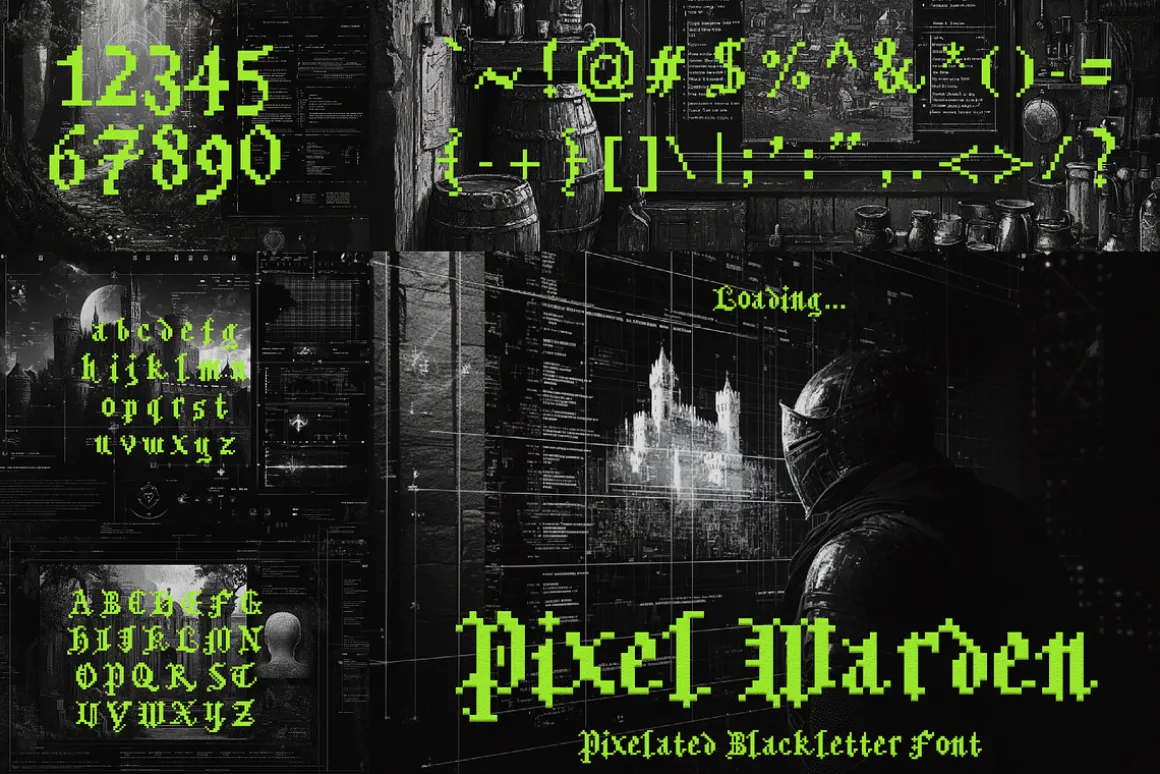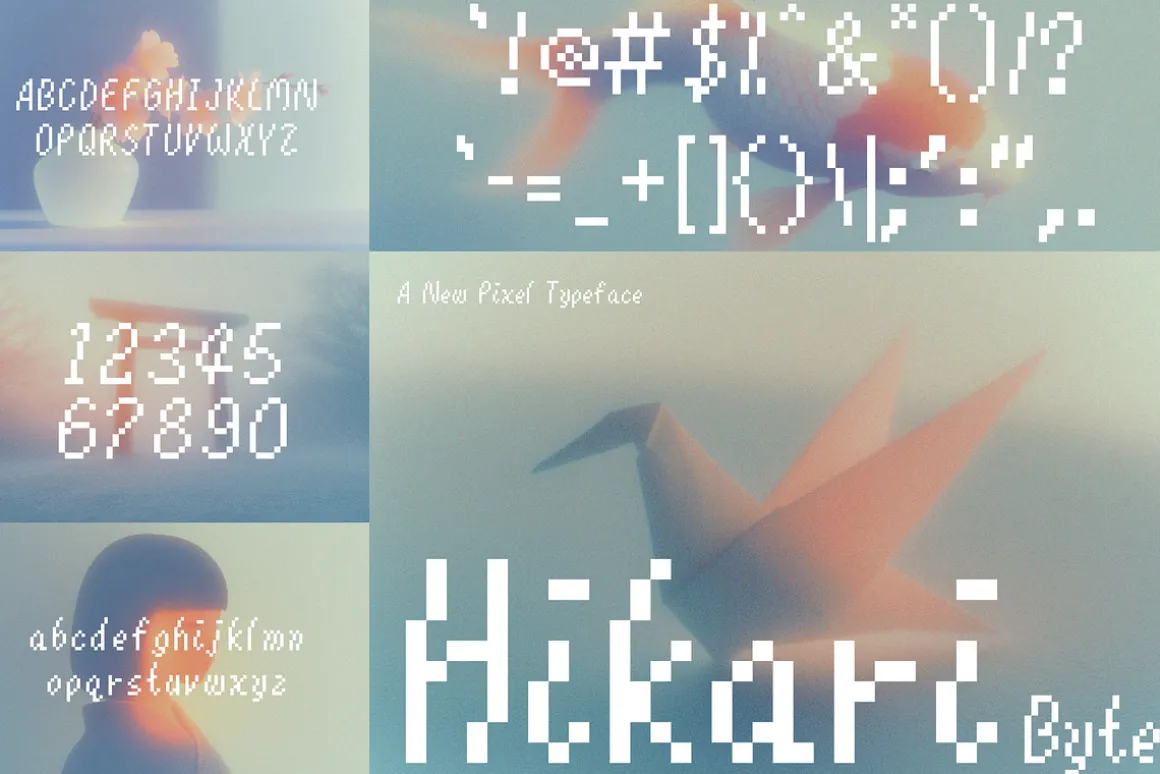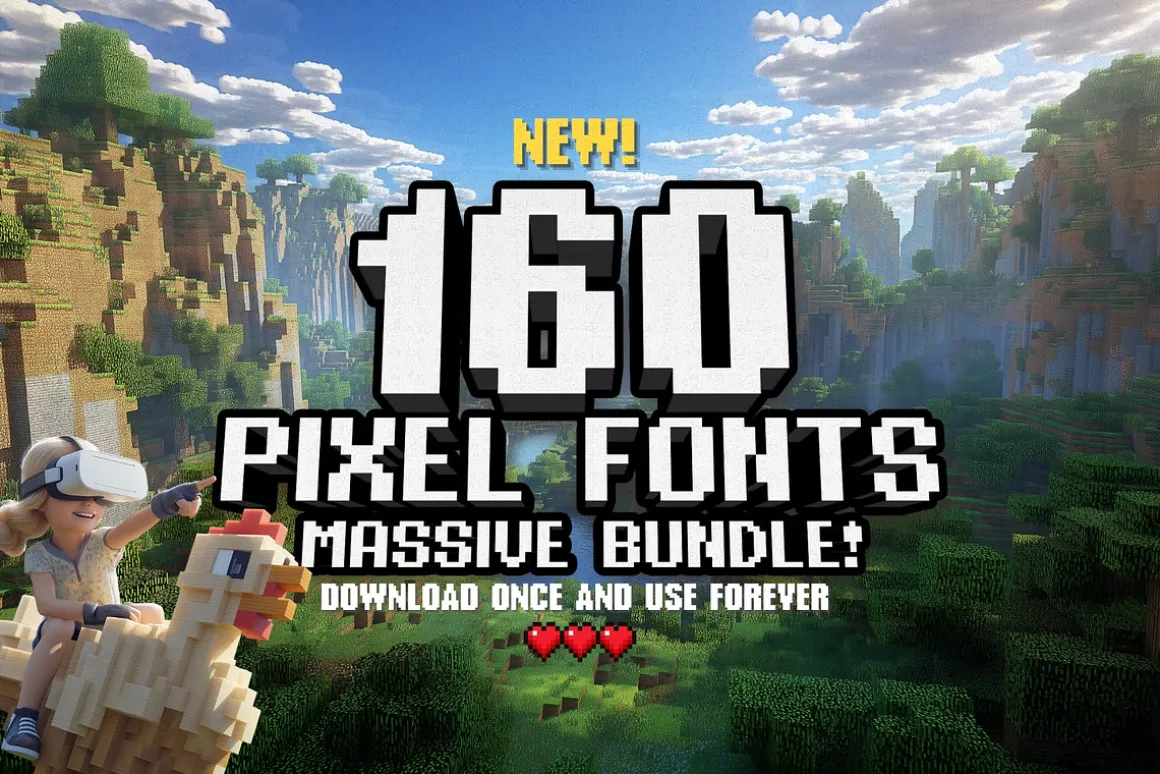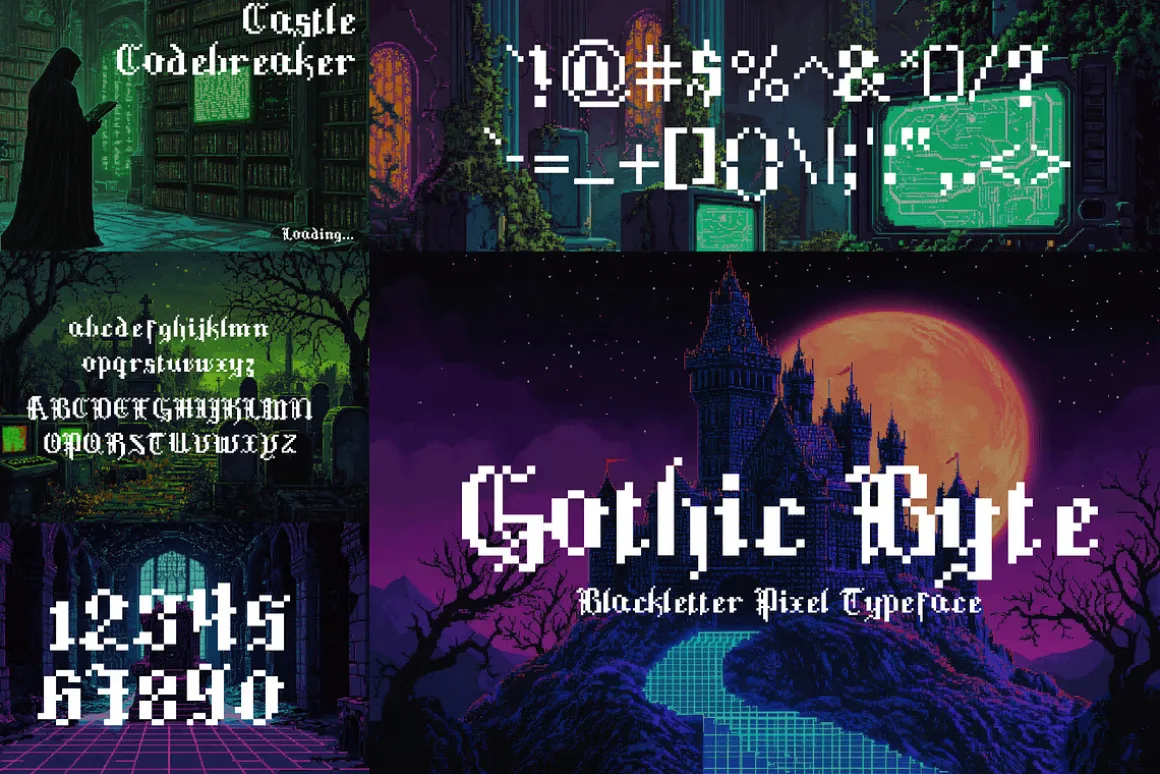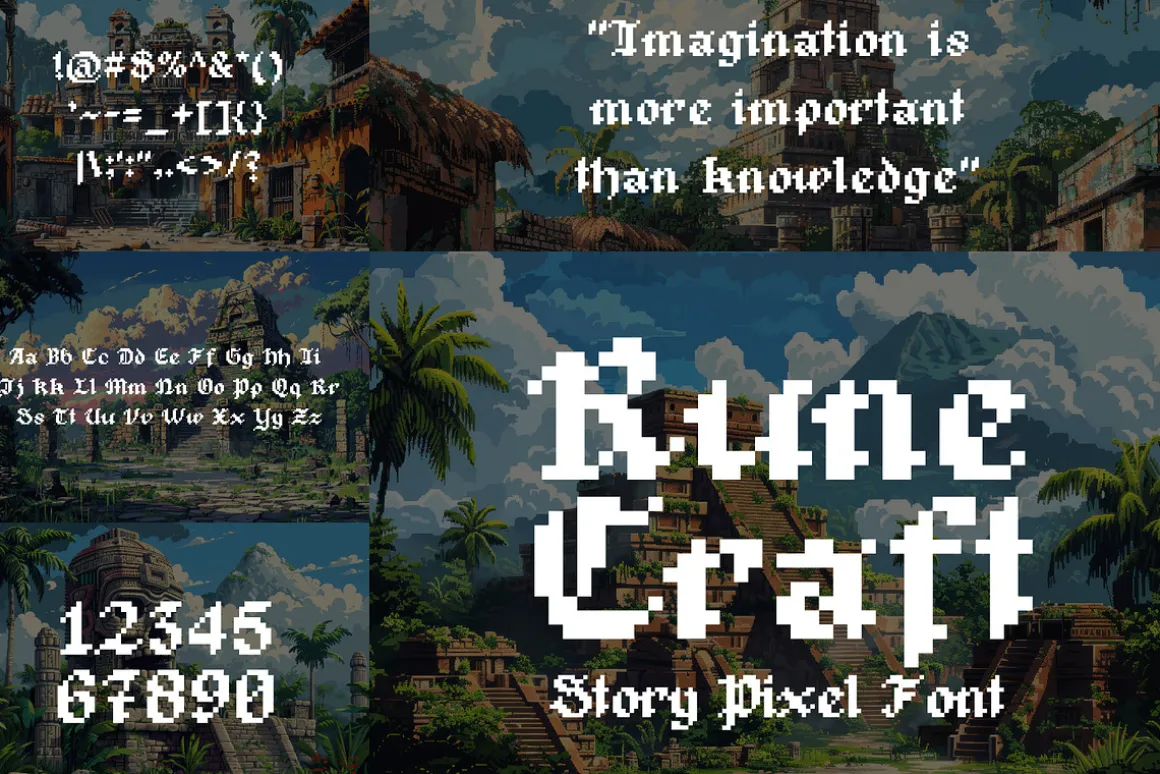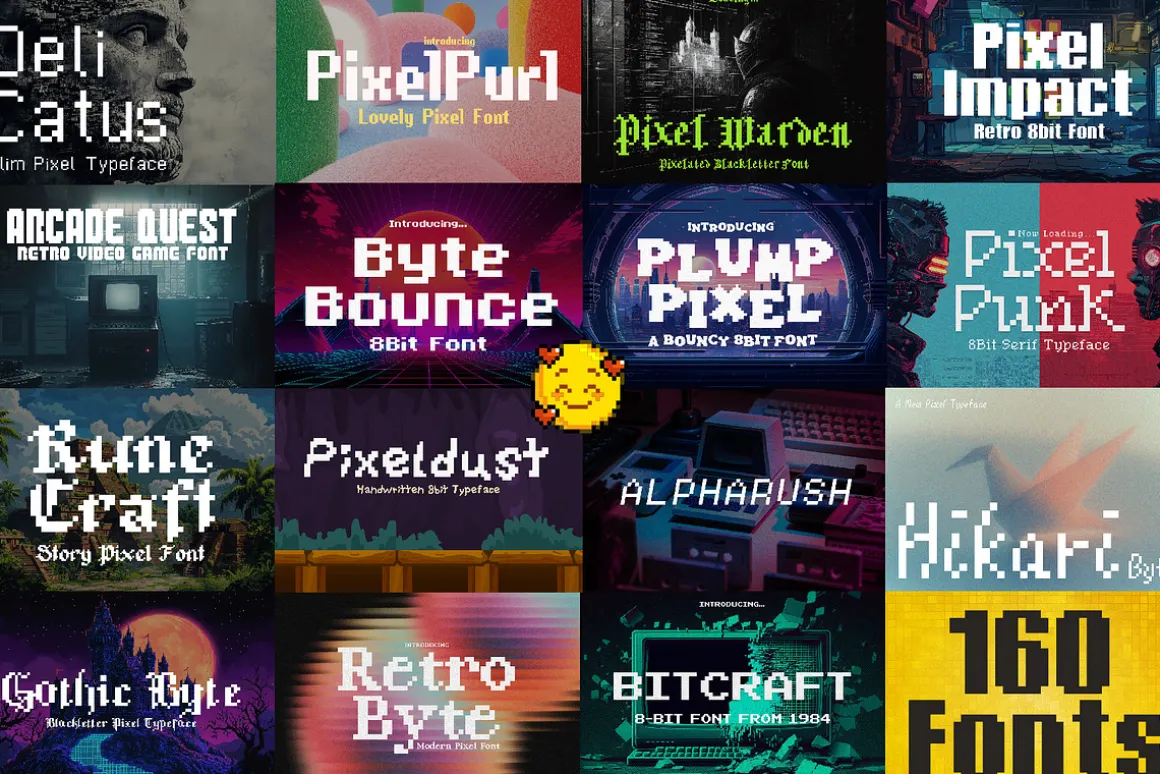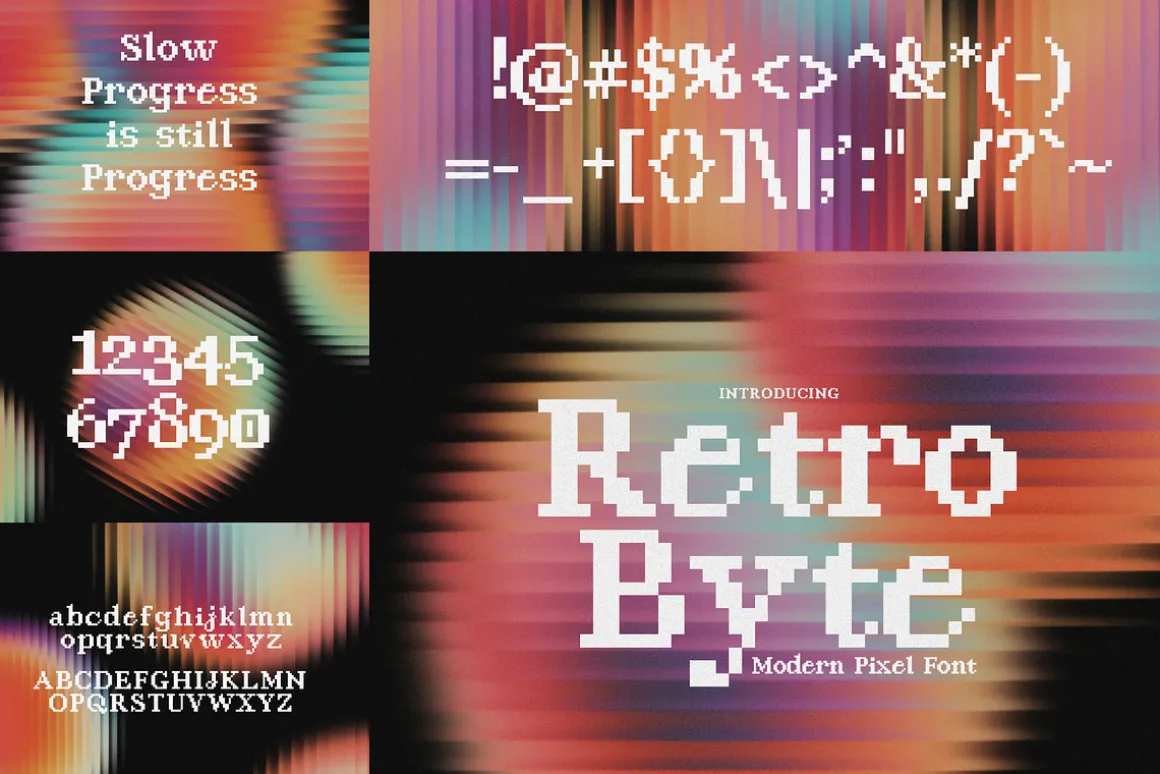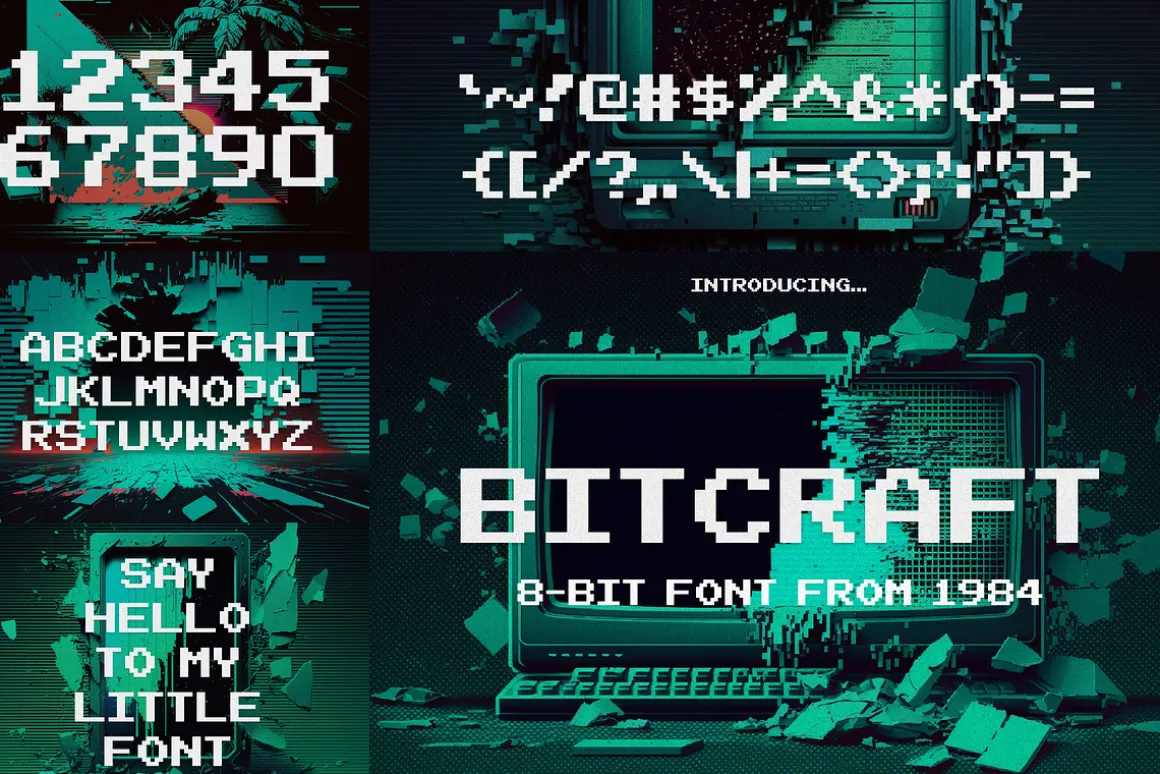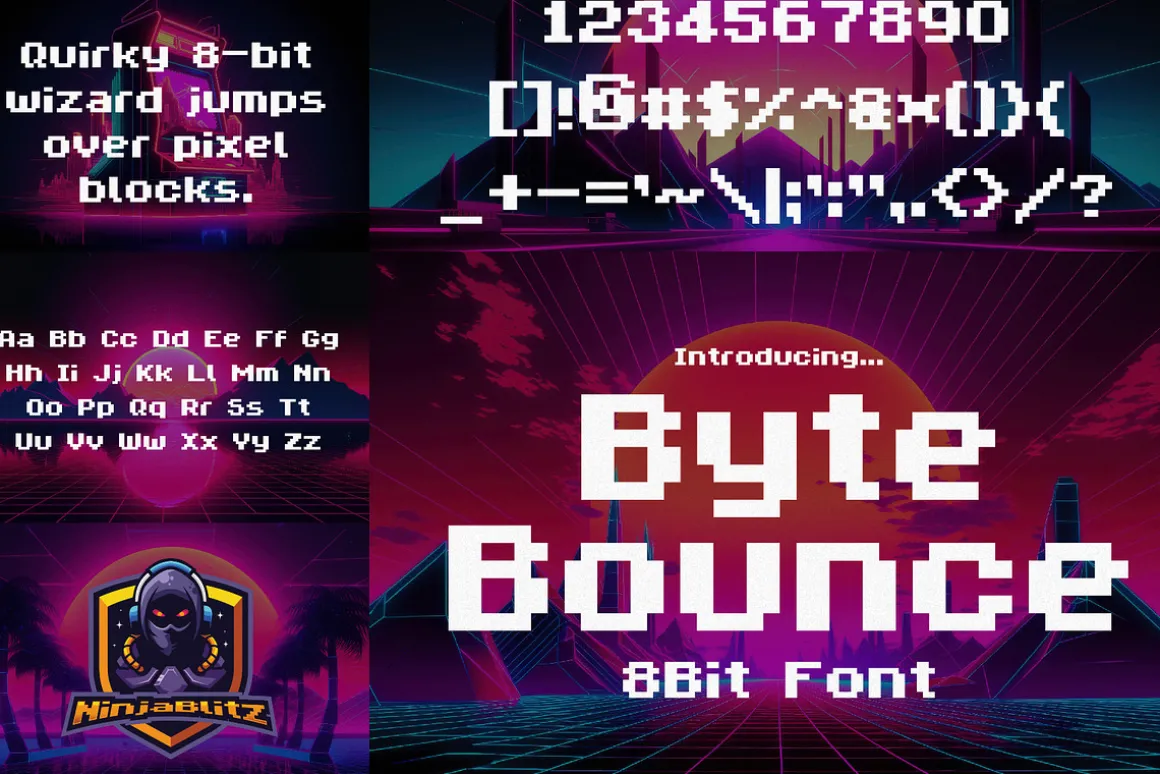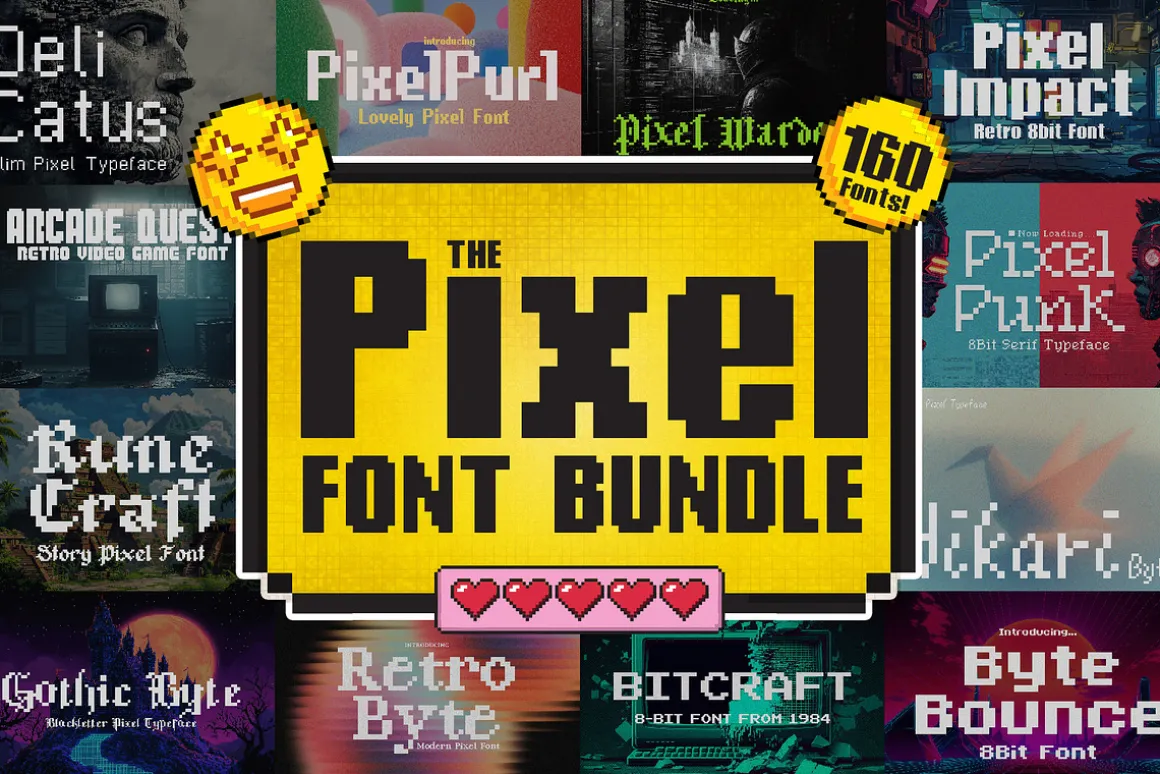
Step into the pixel-perfect world of creativity with the Pixel Font Bundle—a must-have collection for designers, gamers, and creators looking to add a retro-inspired edge to their projects. This bundle features 160 stunningly versatile and meticulously crafted pixel fonts, designed to elevate your work with the charm of 8-bit nostalgia and modern precision.
Whether you’re designing game interfaces, crafting logos, creating social media graphics, or developing websites, these fonts are your secret weapon for standing out. Each typeface in this collection boasts a unique personality, ranging from playful and quirky to bold and futuristic, making it easy to find the perfect match for any project.
- Versatile Variety: 160 pixel fonts with distinct styles to cover every creative need.
- Instant Nostalgia: Bring a retro flair with modern functionality to any design.
📦 Included Fonts:From sleek and minimalist pixel fonts to chunky and bold arcade-inspired typefaces, this bundle has it all.
Here are all the fonts included in this bundle:
- Alpharush –
- Arcade Quest –
- Hikara Byte –
- Pixel Warden –
- Delicatus –
- Gothic Byte –
- PixelPurl –
- Bitcraft –
- ByteBounce –
- Pixel Impact –
- Pixeldust –
- Pixel Punk –
- Plump Pixel –
- Retro Byte –
- Rune Craft–